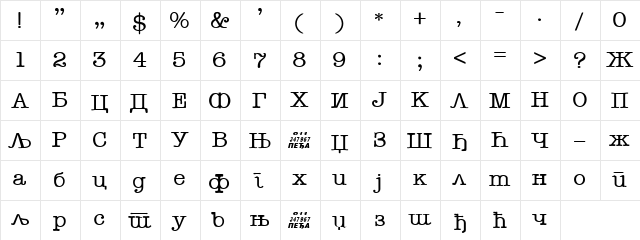
C_Memorandum Normal Font Preview
C_Memorandum Normal
Design Context for C_Memorandum Typeface
C_Memorandum is a composed and adaptable typeface that performs quietly and consistently across a wide range of design contexts.